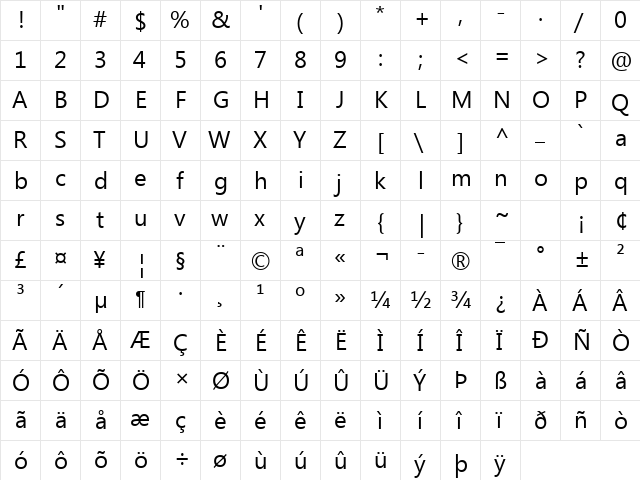
Segoe UI Symbol Normal
Design Context for Segoe UI Symbol Typeface
Segoe UI Symbol takes a measured approach to typography — its balanced proportions and neutral character make it a reliable workhorse for both digital and print work.